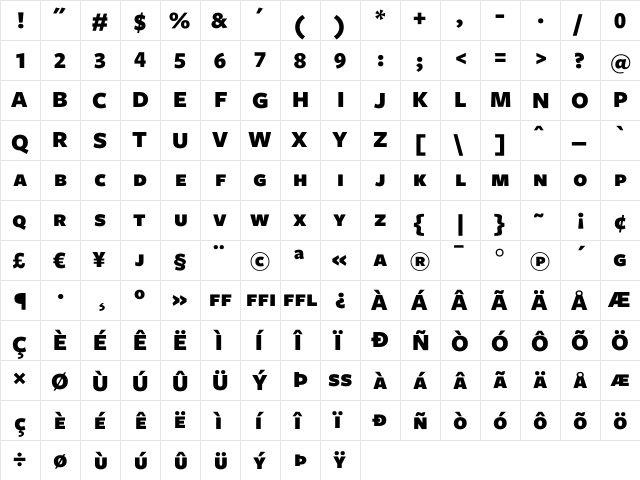
Freight Sans Black SC
| Foundry | Joshua Darden & Phil's Fonts, Inc |
| Designer | Joshua Darden |
Design Context for Freight Typeface
Freight offers clean, dependable letterforms without strong stylistic allegiance, making it a practical choice for designers who need flexibility.
Pro Tip: Pair Freight with a font of contrasting weight or personality to build a more expressive typographic hierarchy.